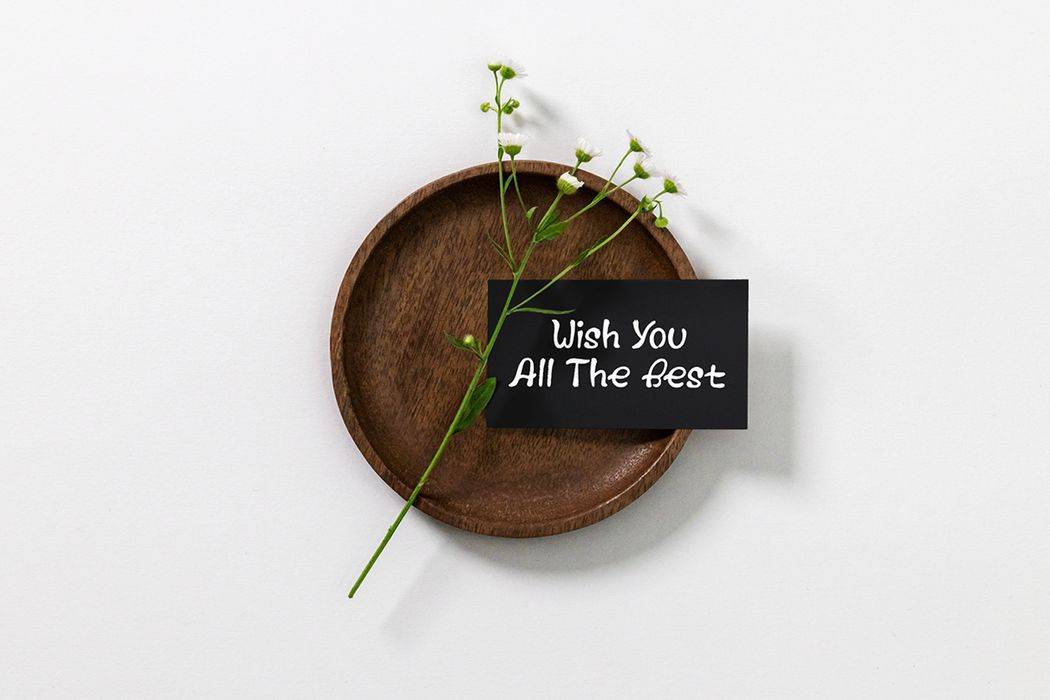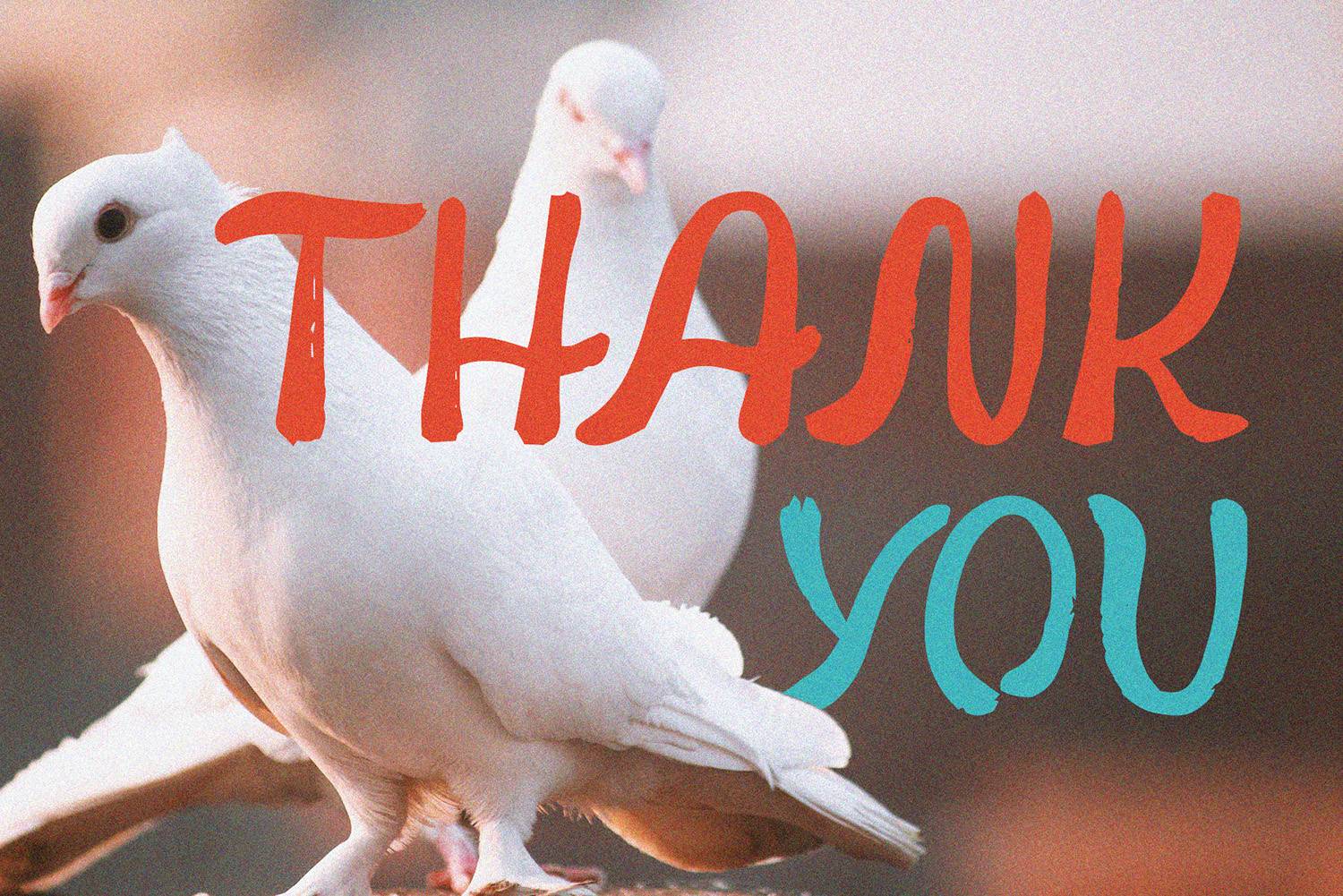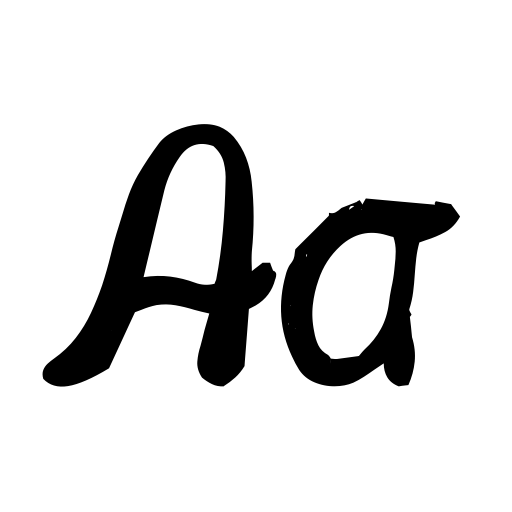
Equal Relationship Font is a playful and informal handwritten typeface with a casual, friendly vibe. Its uneven strokes and quirky letter shapes give it a unique, approachable character, making it ideal for creative projects, children’s materials, and casual branding that seeks a warm, personal touch. This font works best in headlines, logos, and packaging where a laid-back, human feel is desired.
Equal Relationship Font
| Font family | Equal Relationship Font |
| Release date | 2022-05-31 |
| Designer | Muhammad Helmi |